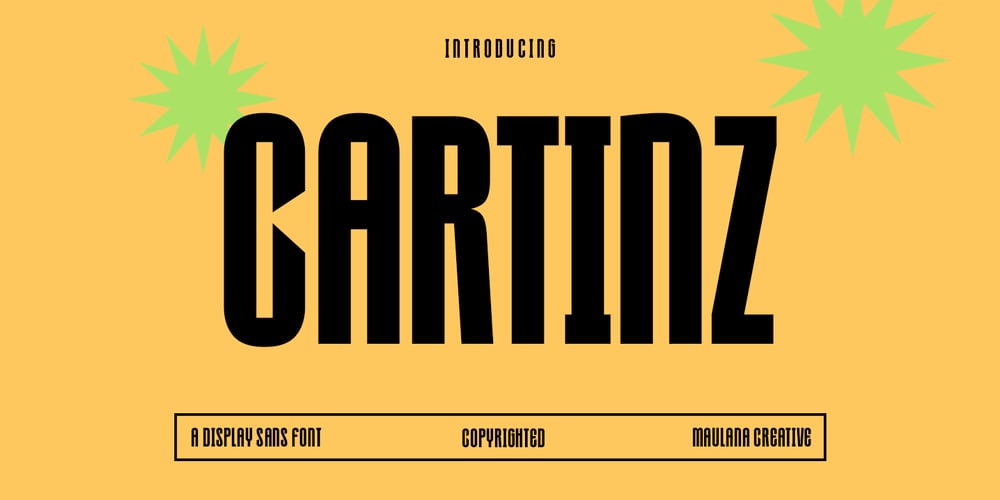
MC Cartinz Font Family was designed by Gilang Maulana and published by Maulana Creative. MC Cartinz contains 1 styles and family package options. Cartinz is a modern sharp condensed sans display font. With bold consist stroke, fun character with a bit of ligatures and alternates. To give you an extra creative work. Cartinz font support multilingual more than 100+ language. This font is good for logo design, Social media, Movie Titles, Books Titles, a short text even a long text letter and good for your secondary text font with sans or serif. Make a stunning work with Cartinz font. Cheers, Maulana Creative